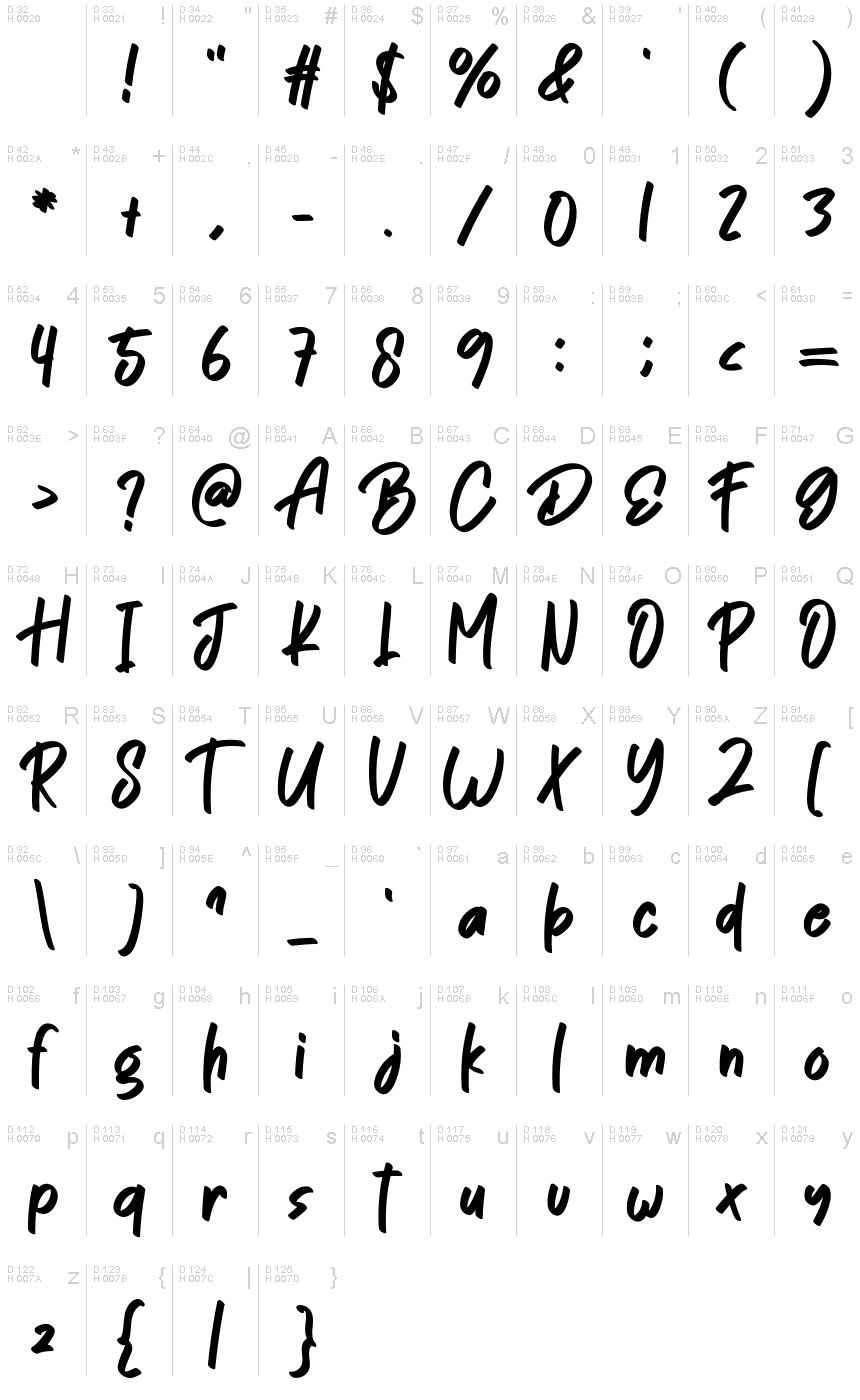
Homework Signature
Homework Signature font is a lovely signature typeface designed by lontong lodeh.
the latest style letters are perfect for wall displays, wedding invitations, social media post logos,
advertisements, product packaging, product designs, labels, photography, watermarks, invitations, stationery,
and any project that requires taste handwriting.